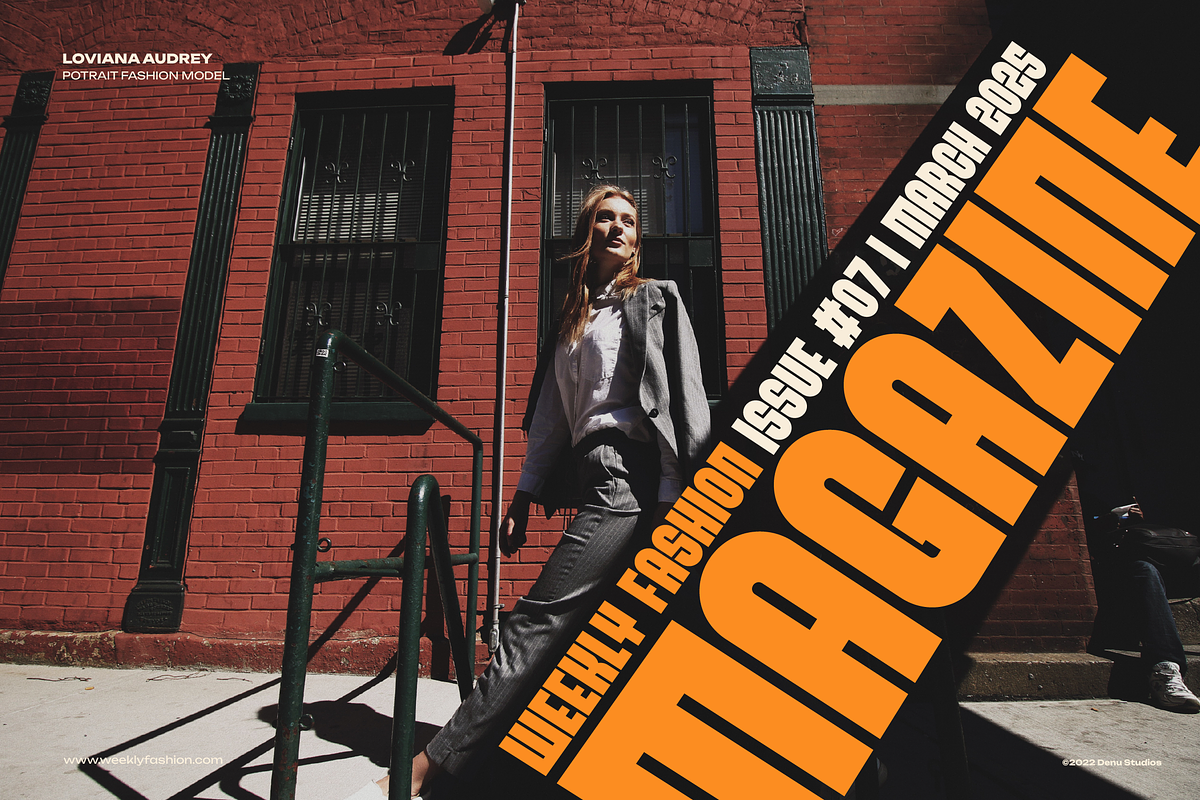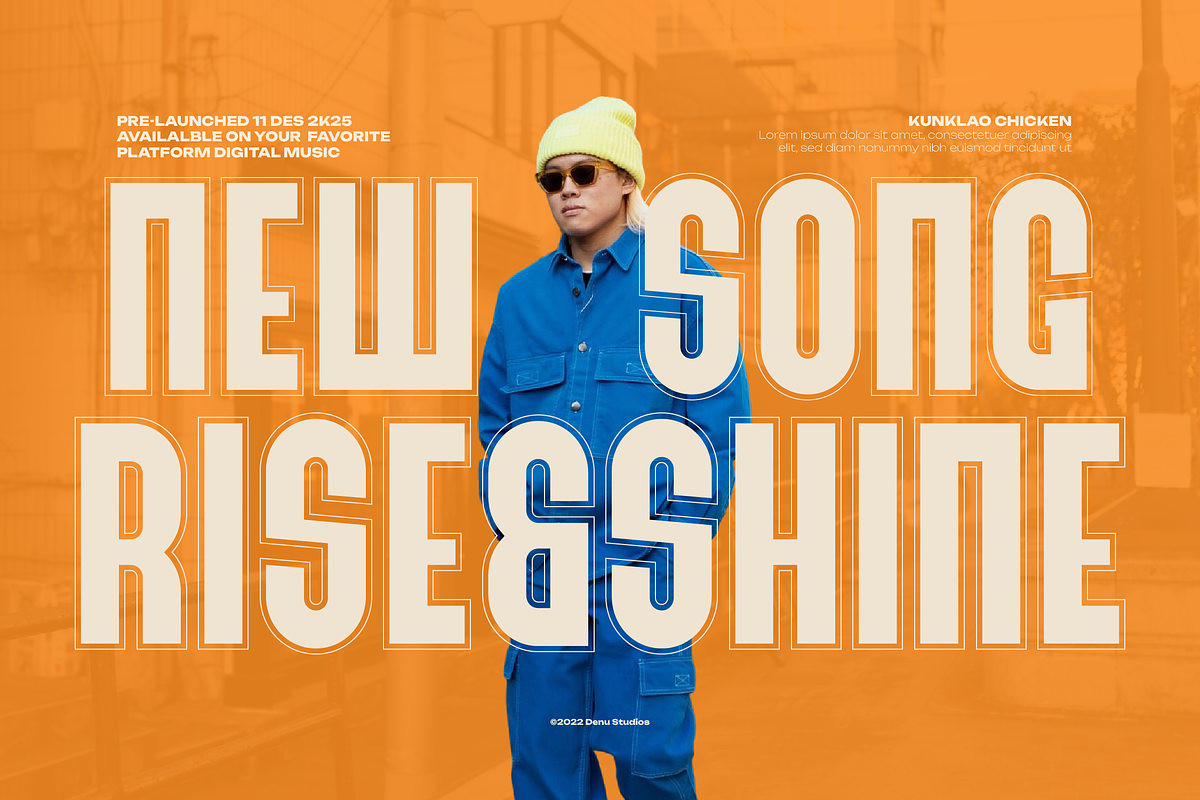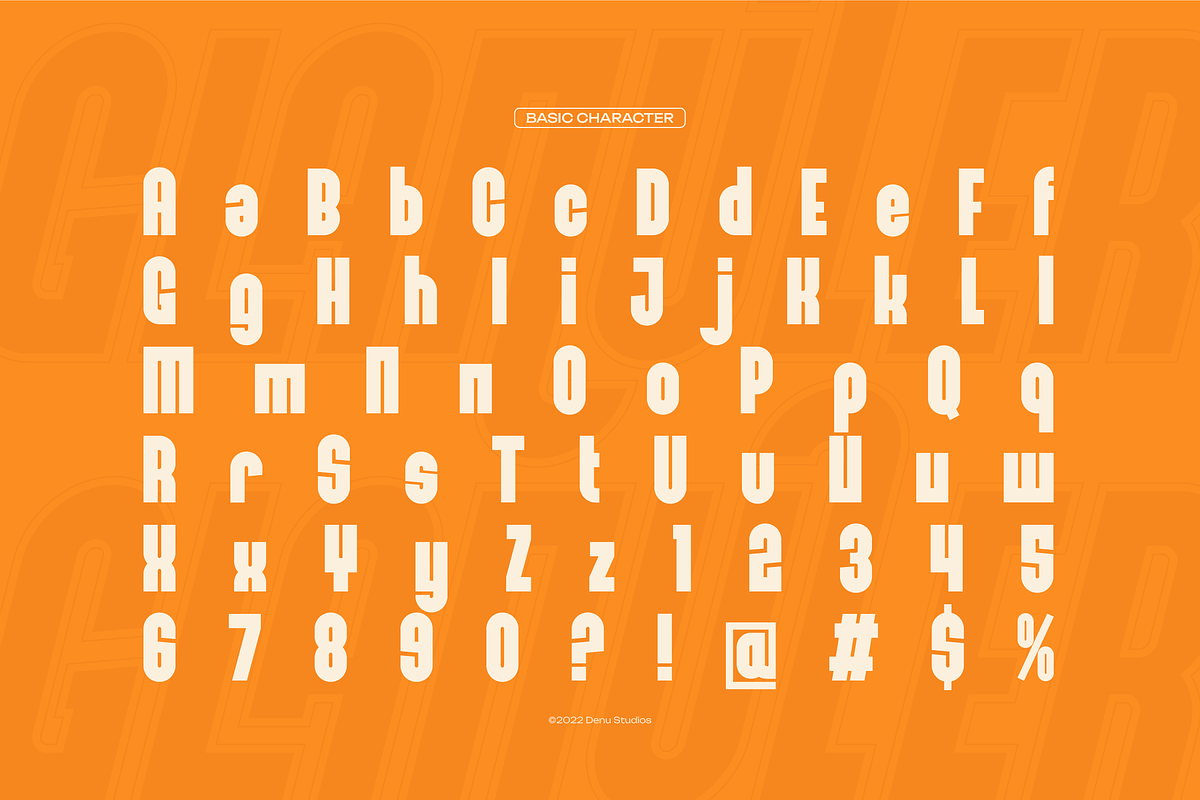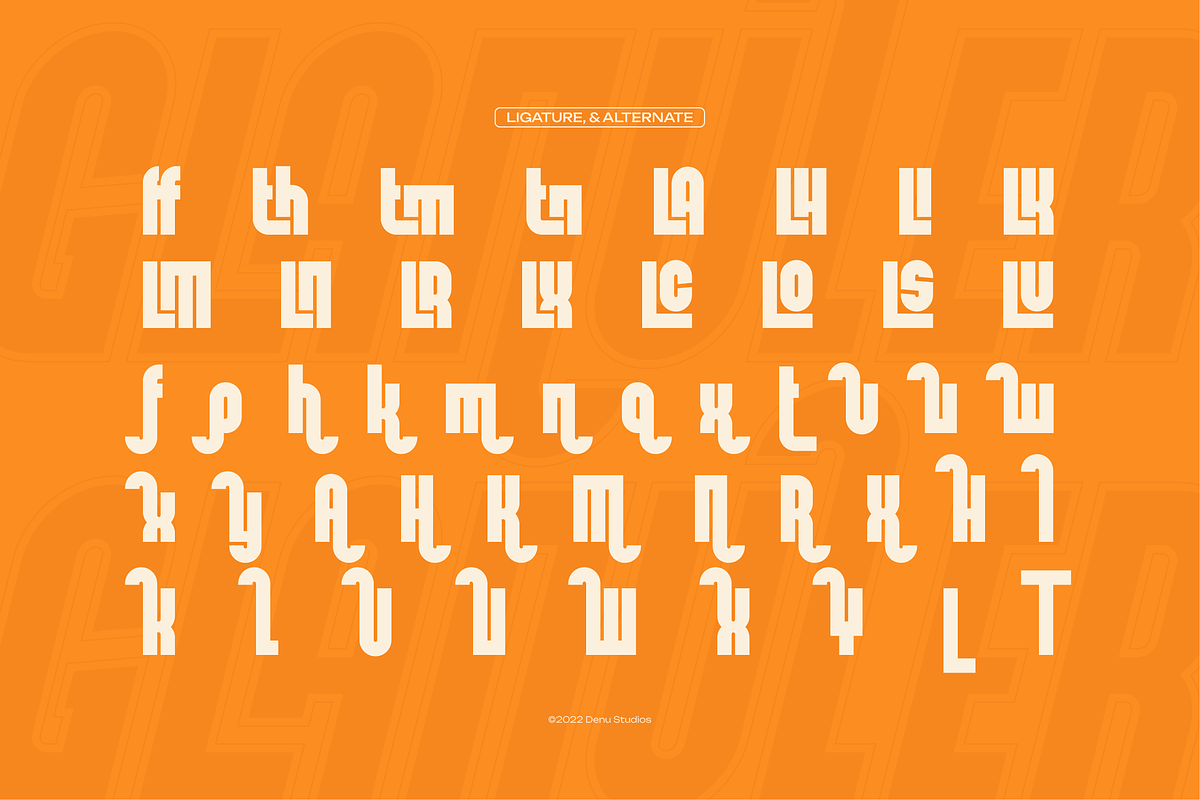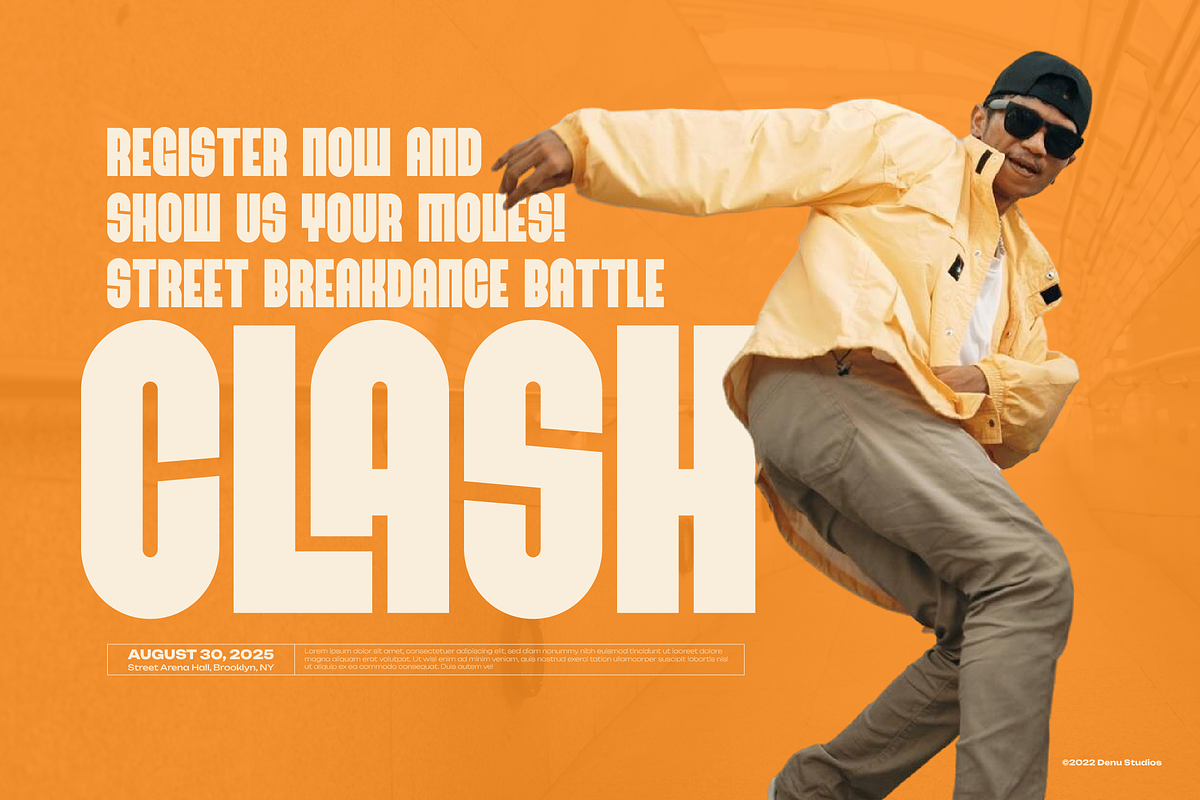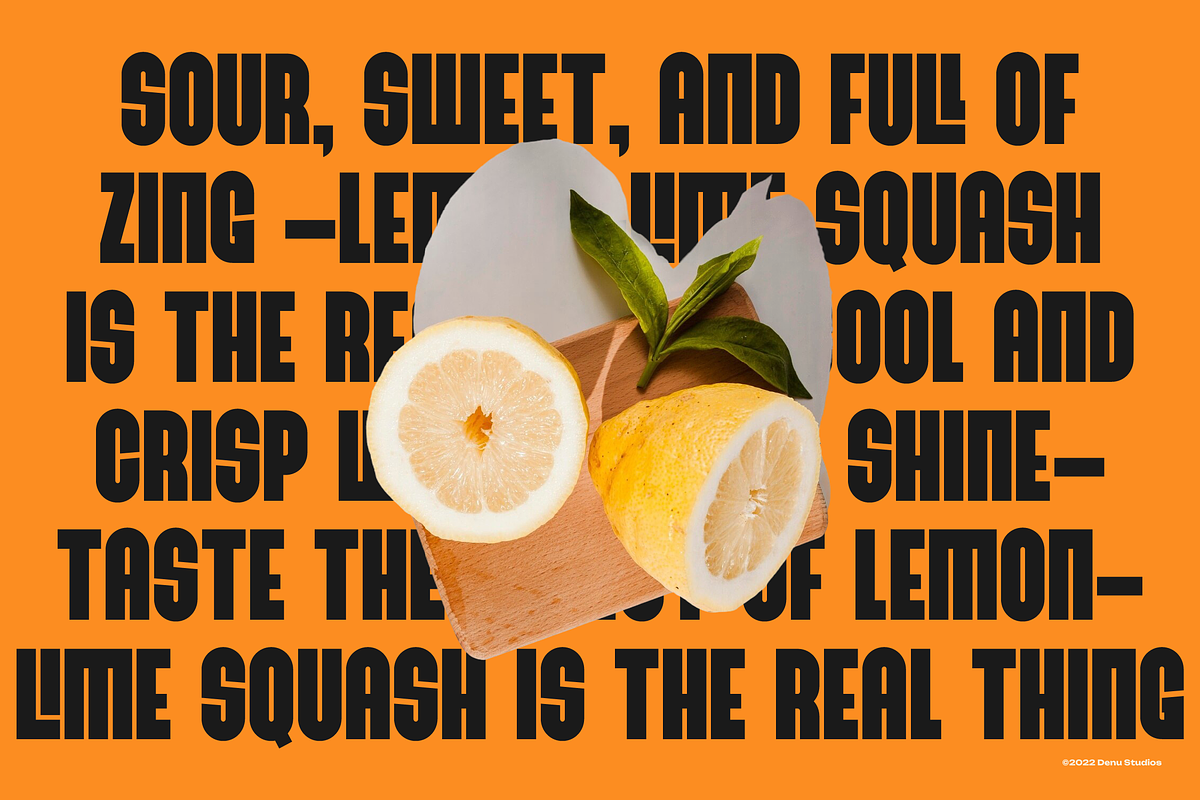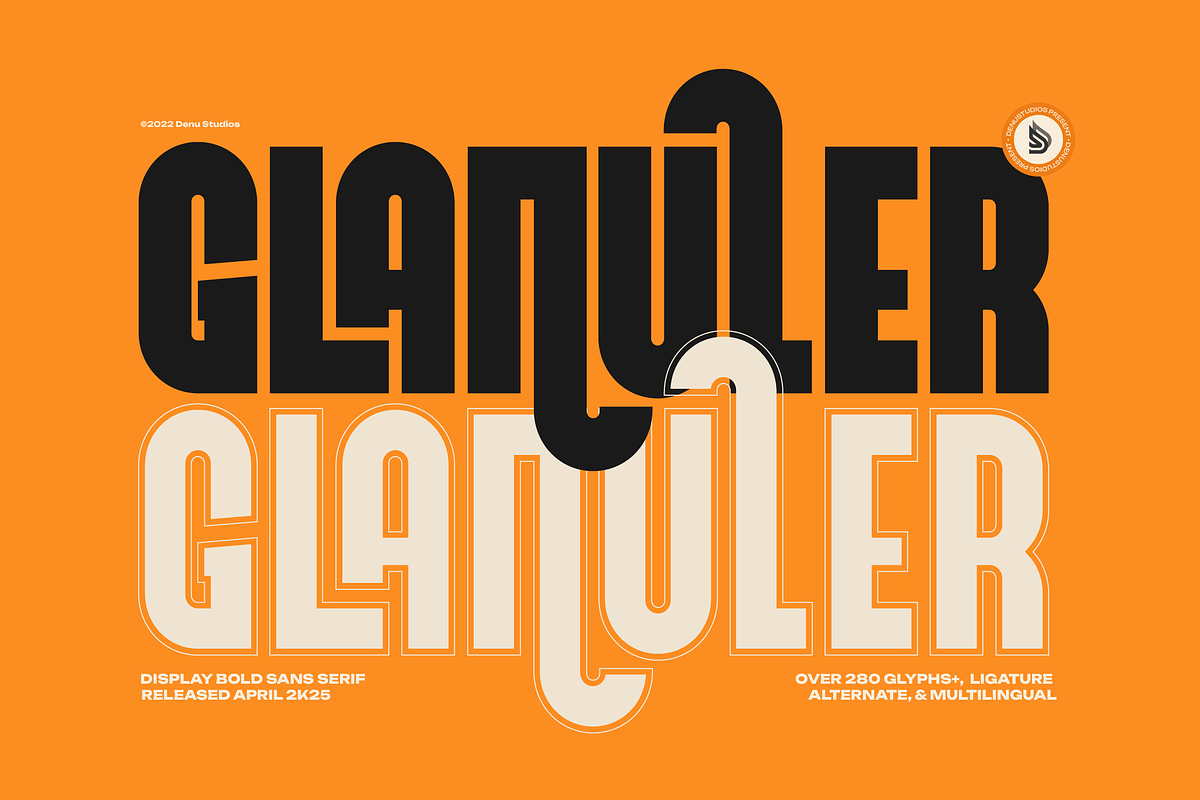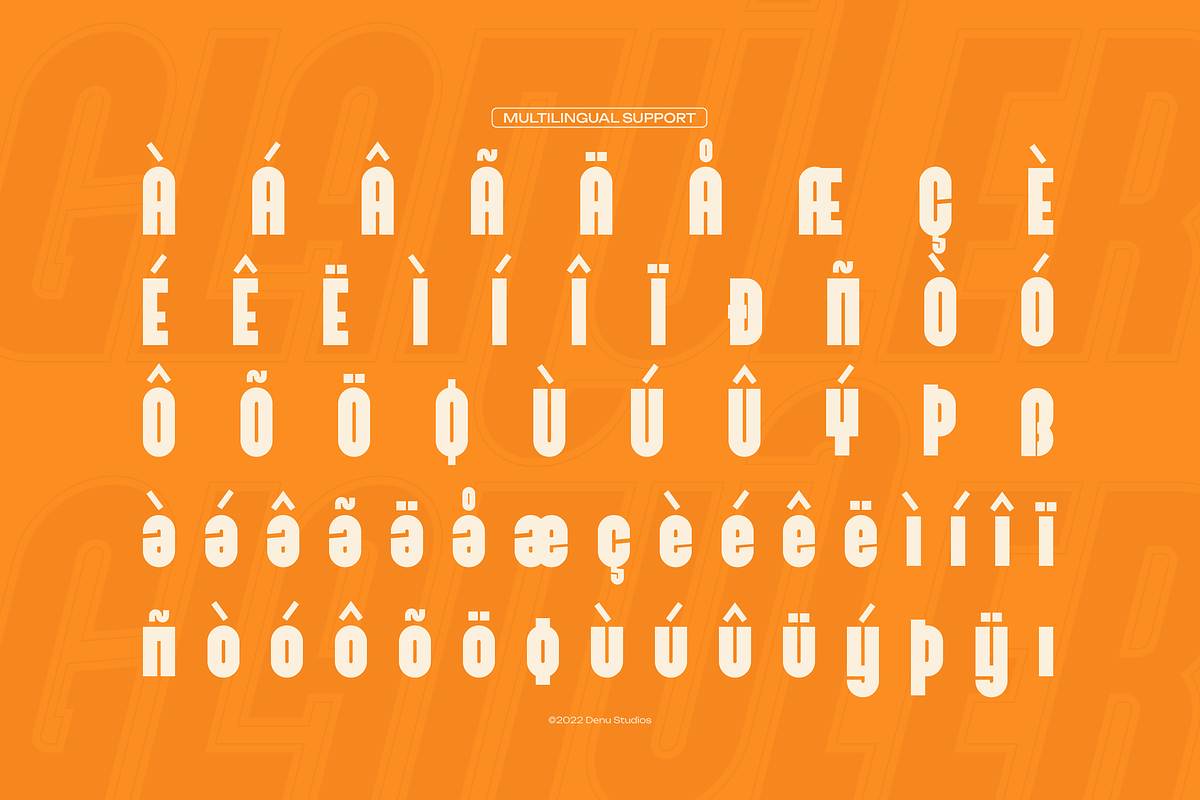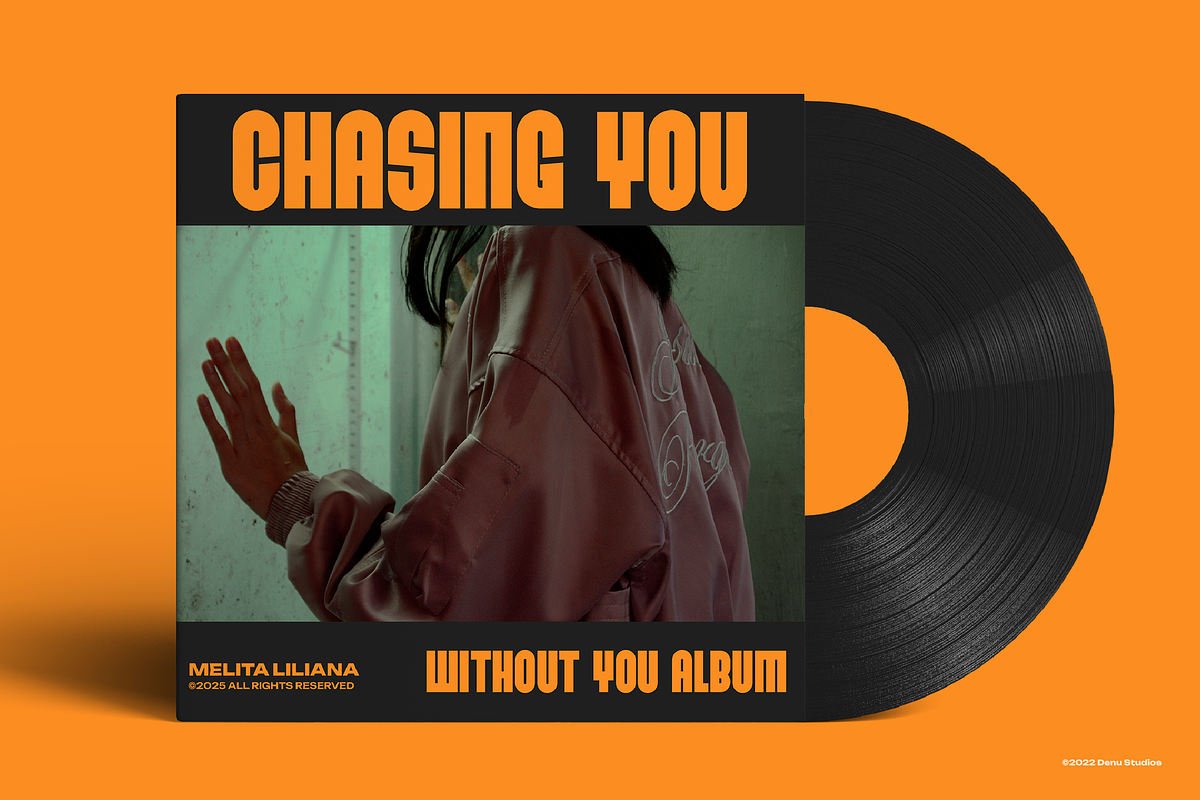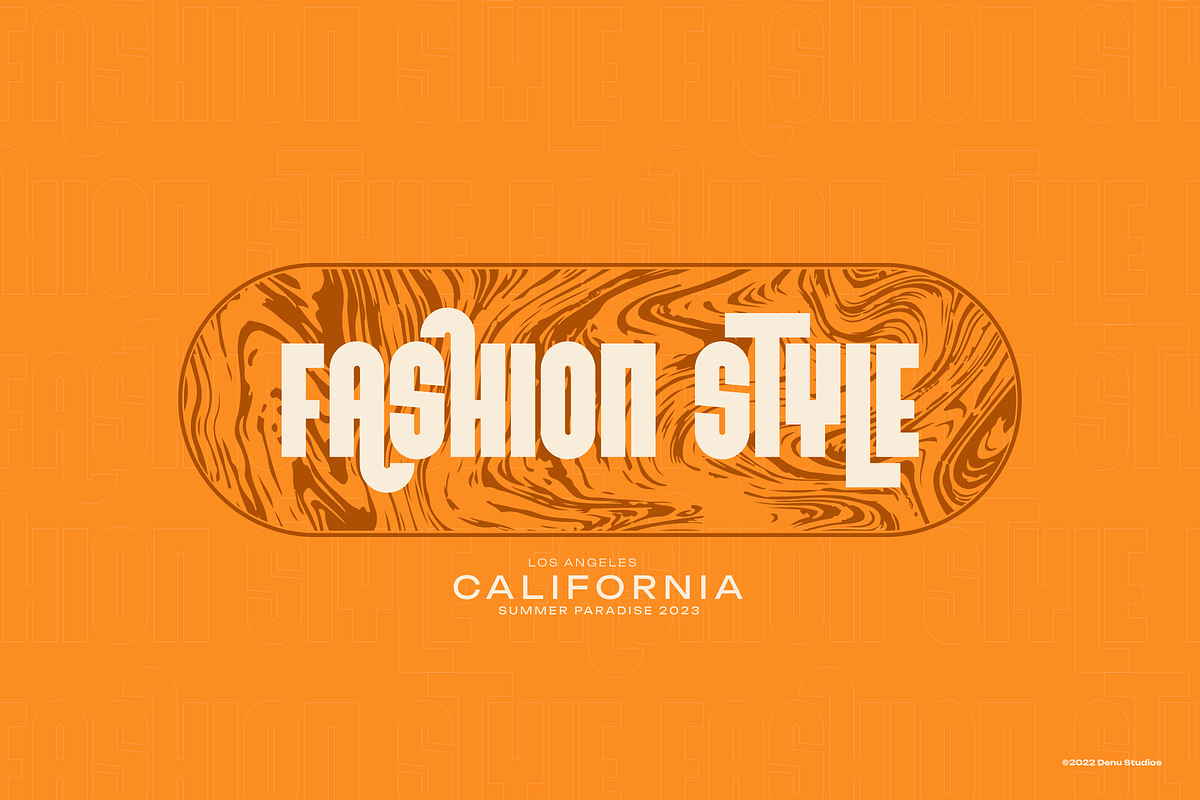
Glanuler | Display Bold Sans Serif
Glanuler | Display Bold Sans Serif, from Denustudios, suitable for any projects such as: logos, branding projects, homeware designs, product packaging, mugs, quotes, posters, shopping bags, t-shirts, book covers, name card, invitation cards, greeting cards, label, photography, watermark, special events, and all your other lovely projects that need a Display Bold Sans Serif taste.